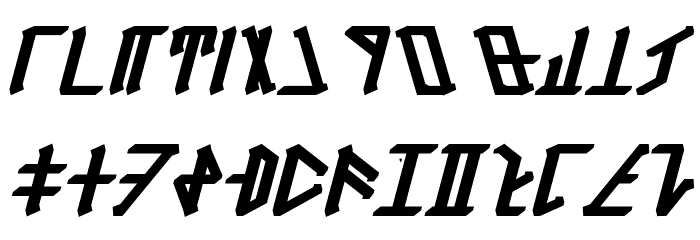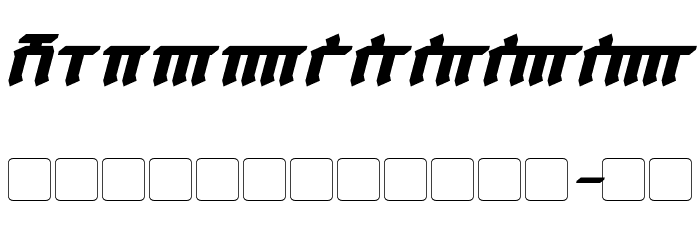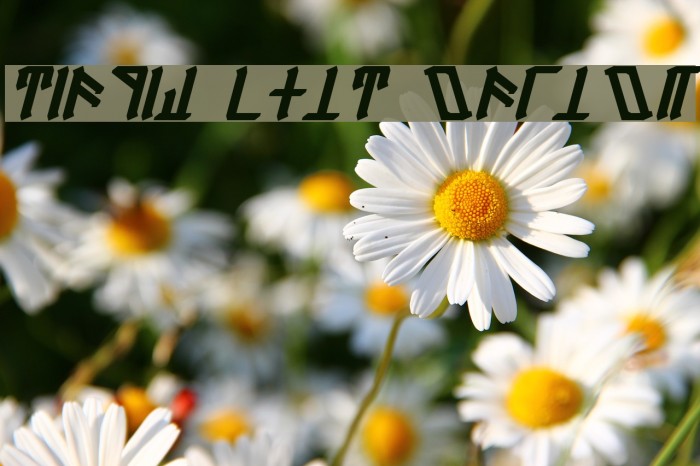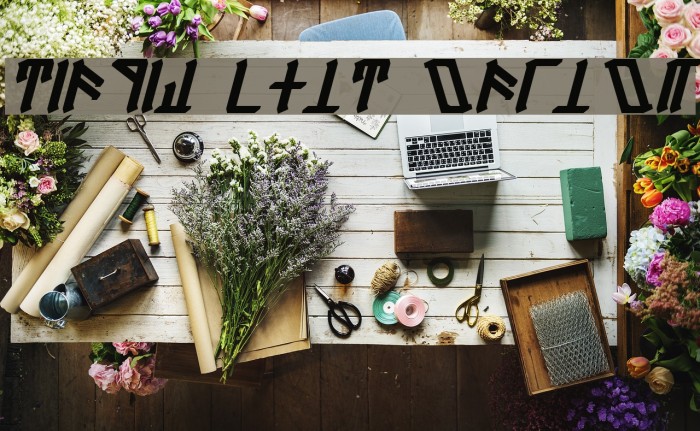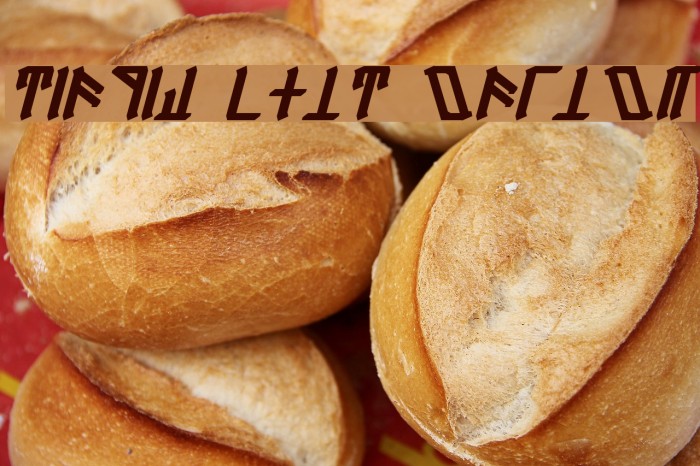
Dethek Bold Italic Font
This font features a bold and italicized style with a distinct, angular design reminiscent of runic or fantasy scripts. The characters are sharply defined with a strong geometric influence, giving it a unique and striking appearance. The uppercase and lowercase letters maintain a consistent style, with each character exhibiting a slanted, italic form. The numbers and special characters follow the same angular and bold design, ensuring uniformity across the font. This font's boldness and unique style make it stand out, suitable for projects that require a touch of fantasy or ancient script aesthetics.
A bold, italicized font with angular, runic-inspired design.
- Proposed Projects: Ideal for fantasy-themed projects, game design, book covers, or any creative work needing a mystical or ancient script look.
- Use Case: Logos, Headlines, Themed Designs